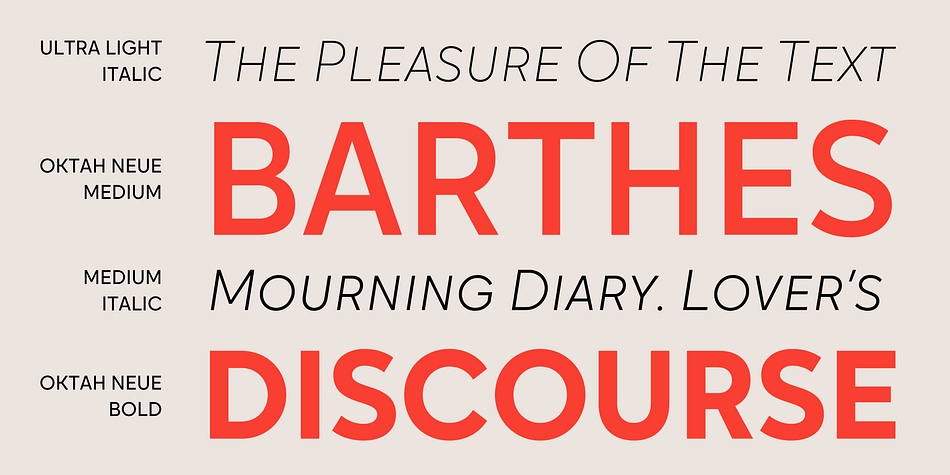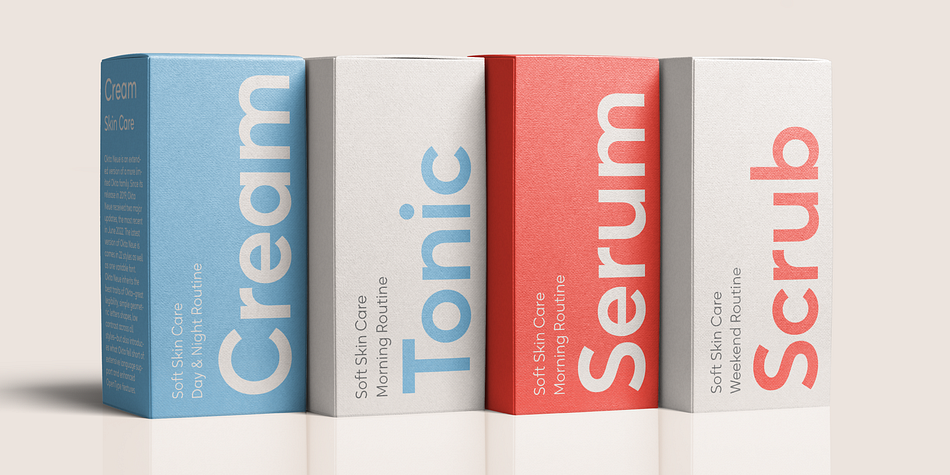
Oktah Neue
Designed by Eugene Tantsurin, Oktah Neue is a sans serif font family. This typeface has twenty-three styles and was published by Groteskly Yours.
Okta Neue is an extended version of a more limited Okta family, originally released in 2019.
Okta Neue inherits the best traits of Okta—great legibility, simple geometric letters shapes, low contrast across all styles—but also introduces what Okta fell short of: extensive language support and enhanced OpenType features.
Working on Okta Neue, we strove to create a neutral typeface that would be a workhorse for designers, typographers and other font users alike. Building onto the familiar shapes of Okta, we tried to make them more neutral, at the same time preserving the unique character of the typeface. Certain characters remained the same, others have undergone a complete transformation, which left them better tailored for the wide implementation range of Okta Neue.
The size of the character set in Okta Neue was significantly expanded (2480 glyphs at the moment) as the Extended Latin set was added and new language systems (Extended Cyrillic, Greek — both Basic and Polytonic — and Hebrew) were introduced. The already vast Cyrillic set also includes localised forms for such languages as Bulgarian, Serbian and many others.
Okta Neue is OpenType friendly: it knows how to do alternatives, contextual alternatives, switch various between stylistic sets and adjust the height of punctuation and symbols as you type. Small Caps include all listed languages as well as numerals and symbols. Okta Neue comes equipped with various styles of numerals — from standard Proportional Lining figures to Oldstyle, Tabular Oldstyle. Sub- and Superscript, Fractions and two sets of circled numbers. Okta Neue is well-kerned with more than 3000 kerning pairs and automatically hinted.
Okta Neue comes in 22 styles (11 uprights and 11 italics), two of which — Ultra Light and Black Italic — can be downloaded free of charge to get a firsthand experience of what Okta Neue is ready to offer.